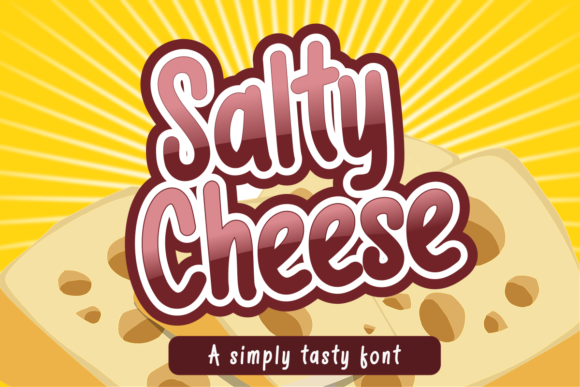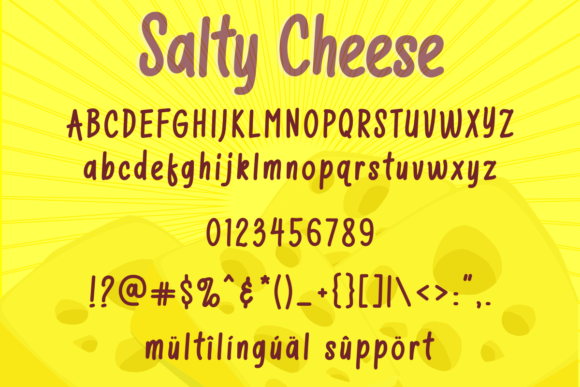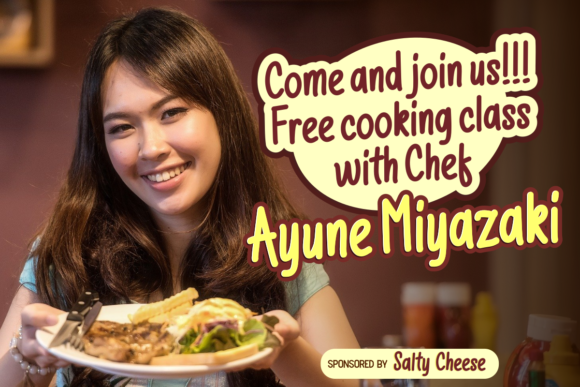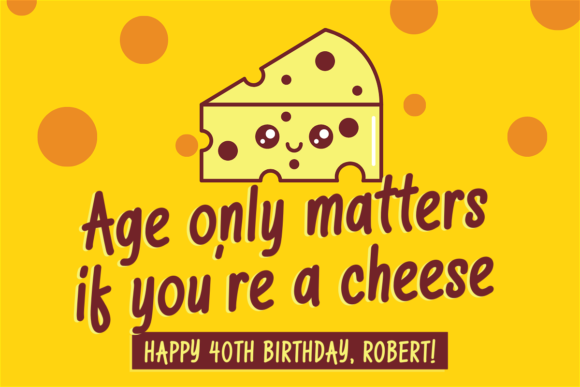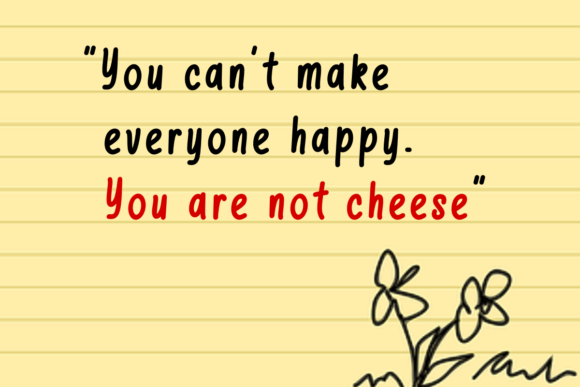
Salty Cheese Font
About Salty Cheese Font
Salty Cheese is a simple and tasty handwritten font, perfect for a wide variety of designs. It works great for quotes, social media, youtube thumbnails, book covers, cards, merchandises and many more!